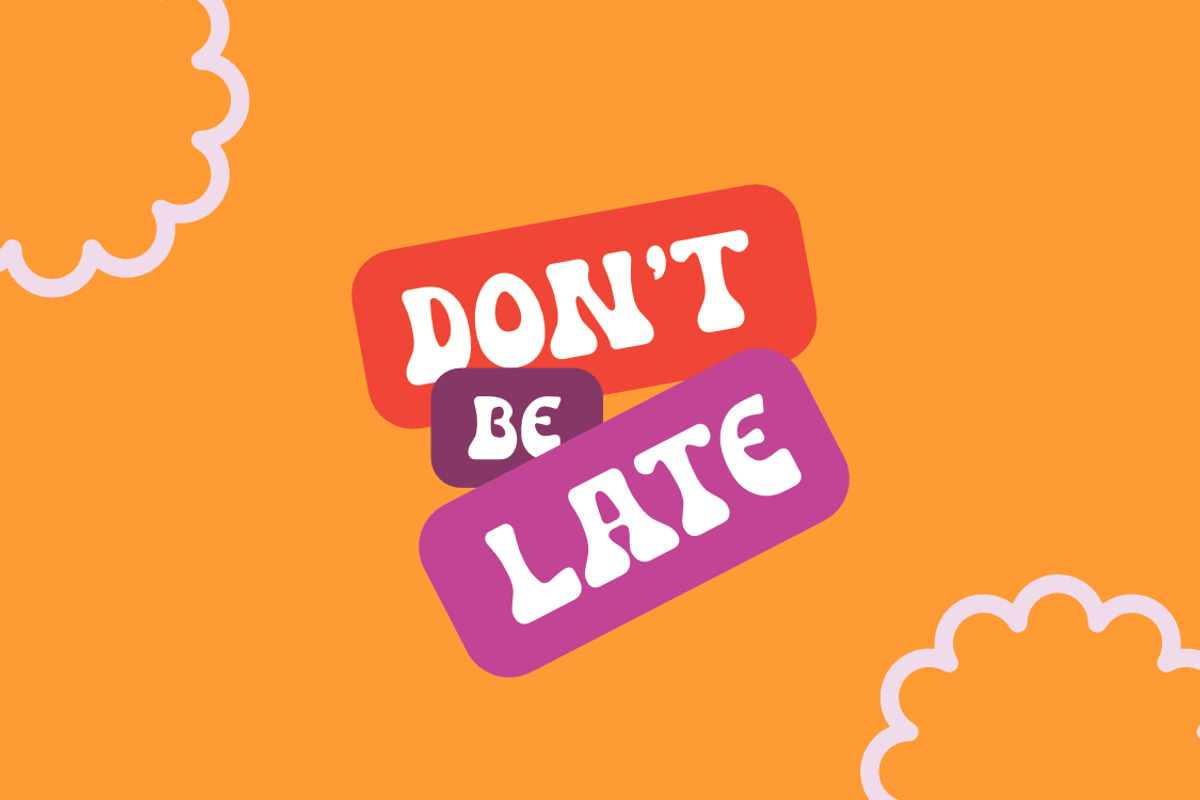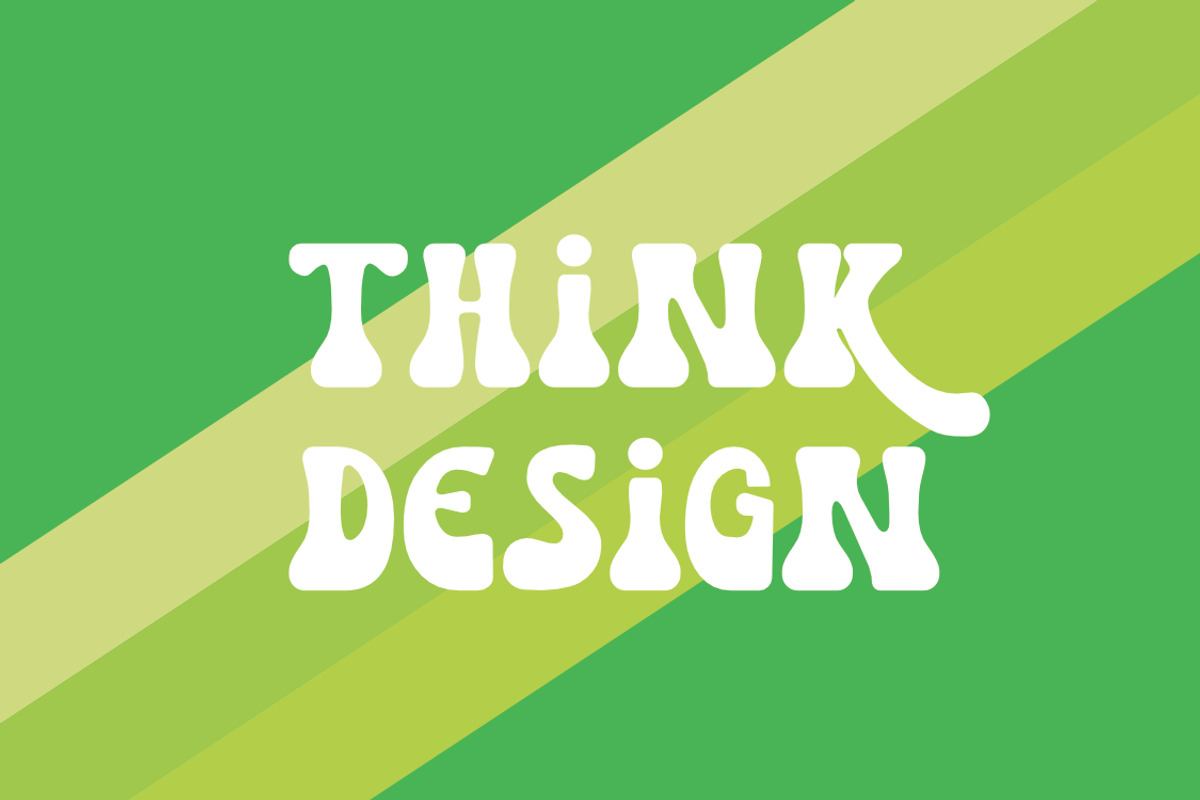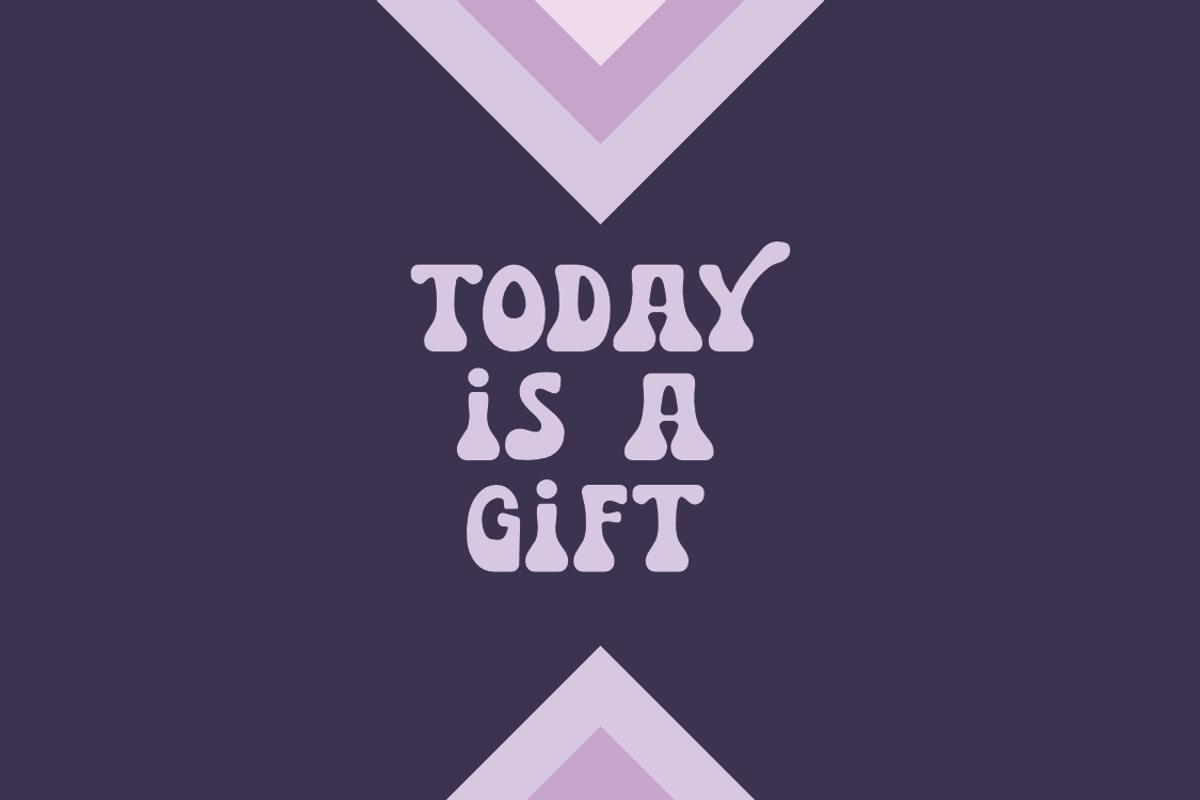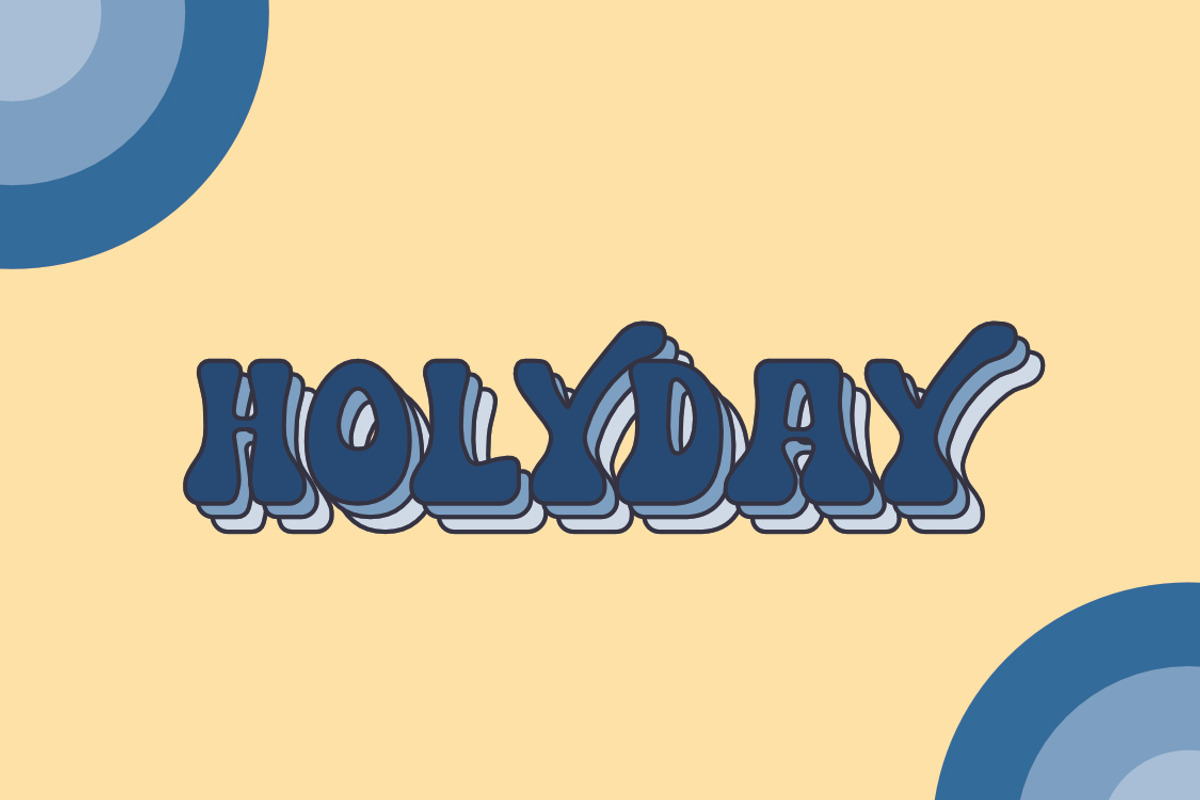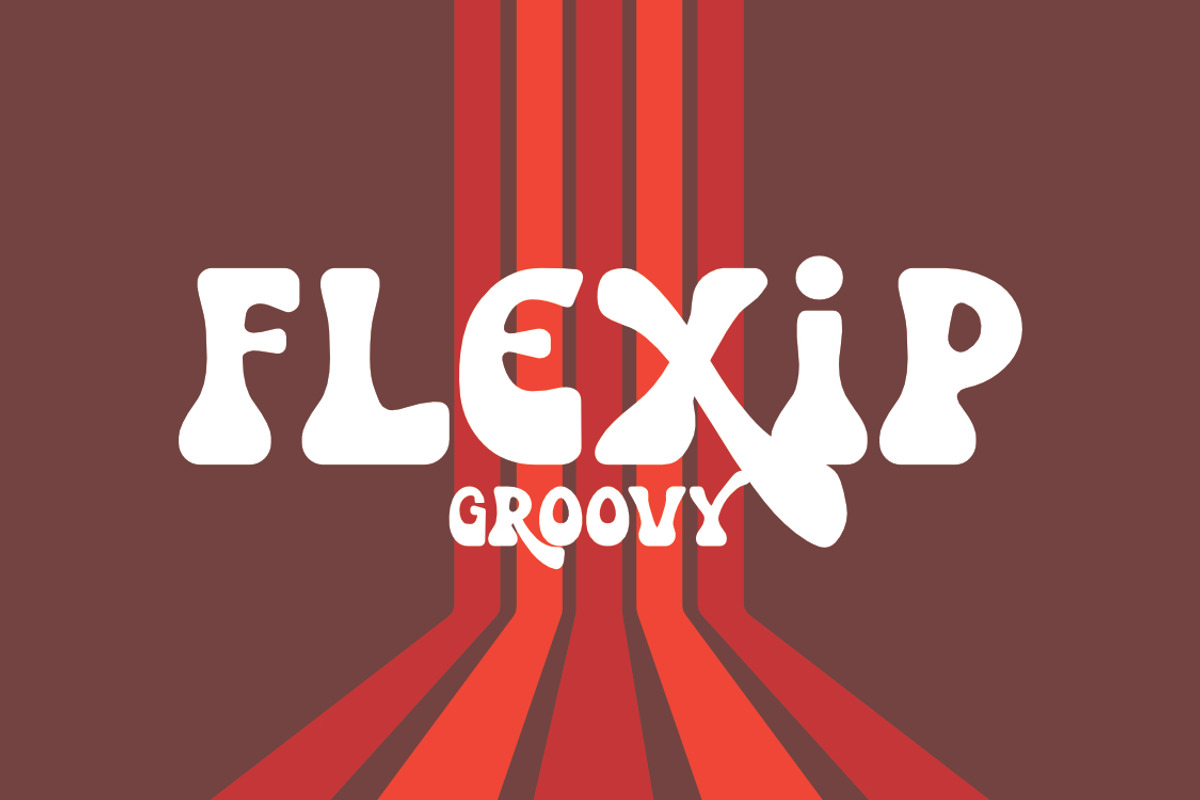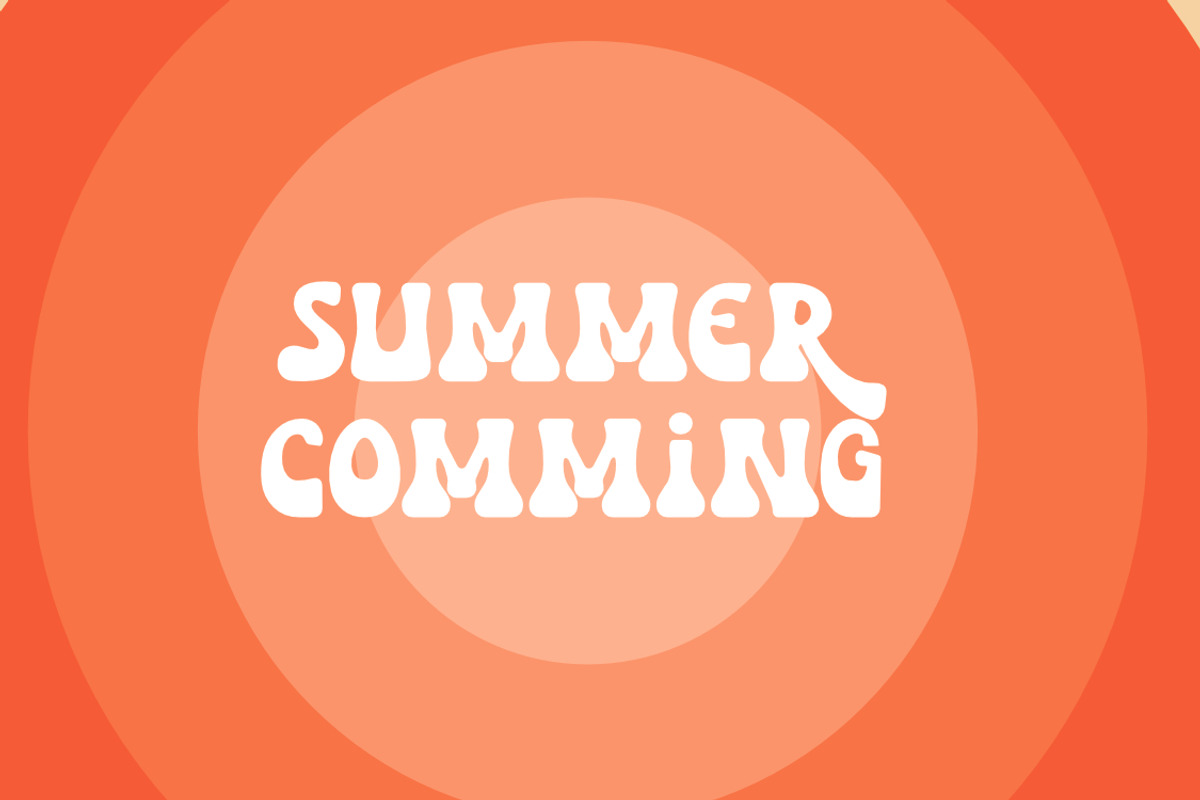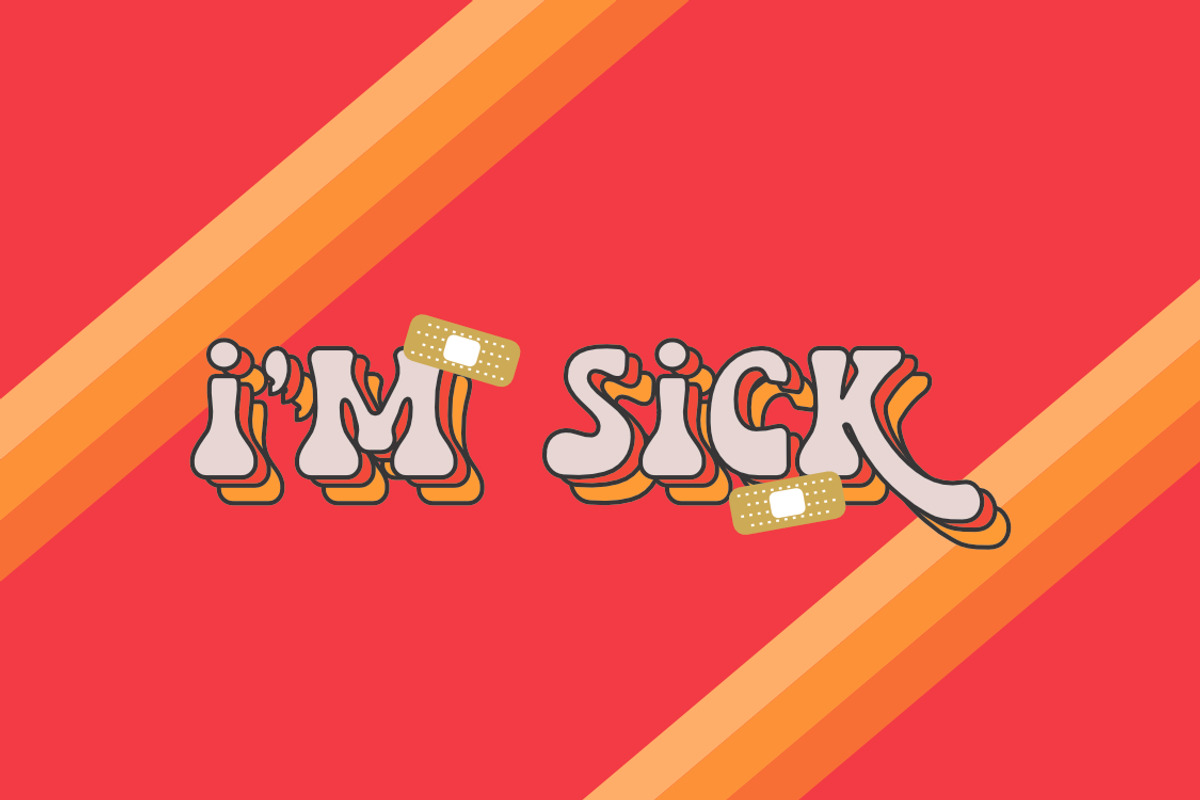
FLEXIP GROOVY FONT
FLEXIP GROOVY A very beautiful and interesting DISPLAY, and comes with a perfect line for use for various purposes. Like titles, signatures, logos, correspondence, wedding invitations, letterheads, nameplate, labels, bulletins, posters, badges, Branding, Greeting Cards, etc.